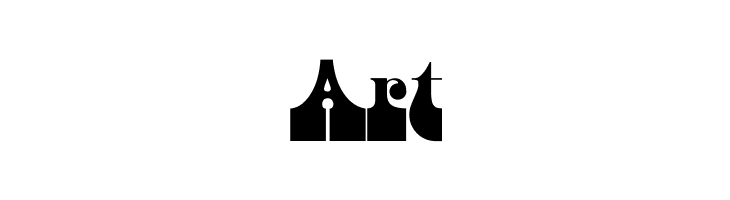
• Insight Issue New
A bold, geometric font with a modern and strong presence.
• Inspyratta
A modern, geometric font with sharp angles and smooth curves, perfect for contemporary designs.
• IntellectaHeraldics
• Interstellar Erosion
A rugged, distressed font with a hand-drawn, textured appearance.
• Irish Grover
A bold, decorative font with whimsical, medieval-inspired elements.
• Irish Growler
A bold, gothic-inspired font with sharp serifs and thick strokes.
• Irken
• Iron H Metal
A bold, angular font with a metallic and industrial aesthetic.
• Iron H Metal Outline
A bold, angular font with a metallic outline and futuristic design.
• IronButterfly HM